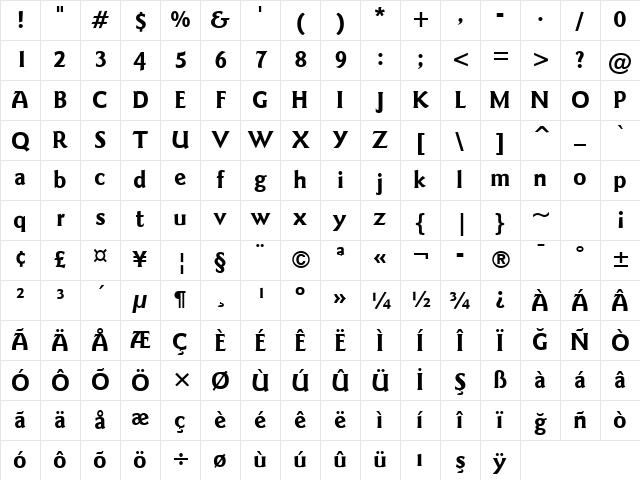
Complete GoudySans Md BT Bold glyph index. Displaying only characters natively supported by GoudySans Md BT Bold font.
GoudySans Md BT is a composed and adaptable typeface that performs quietly and consistently across a wide range of design contexts. Its bold stroke weight gives it real presence on the page.